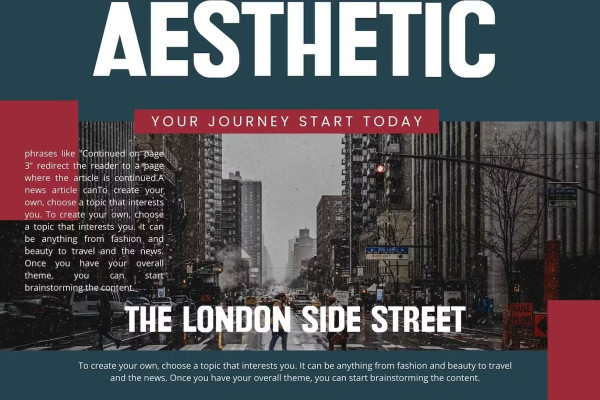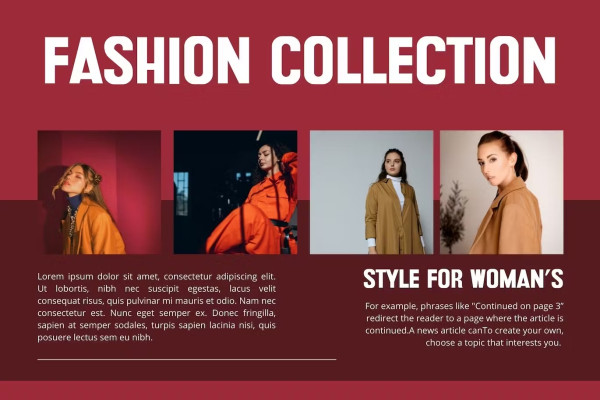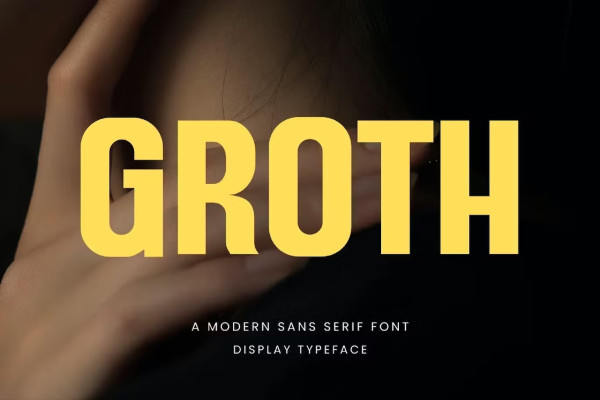
Groth Font
Groth Font, inspired by famous minimalist logo, perfect for designing templates, brochures, videos, brand ads, logos, invitations, layouts, elegant crafts, beauty designs, etc.